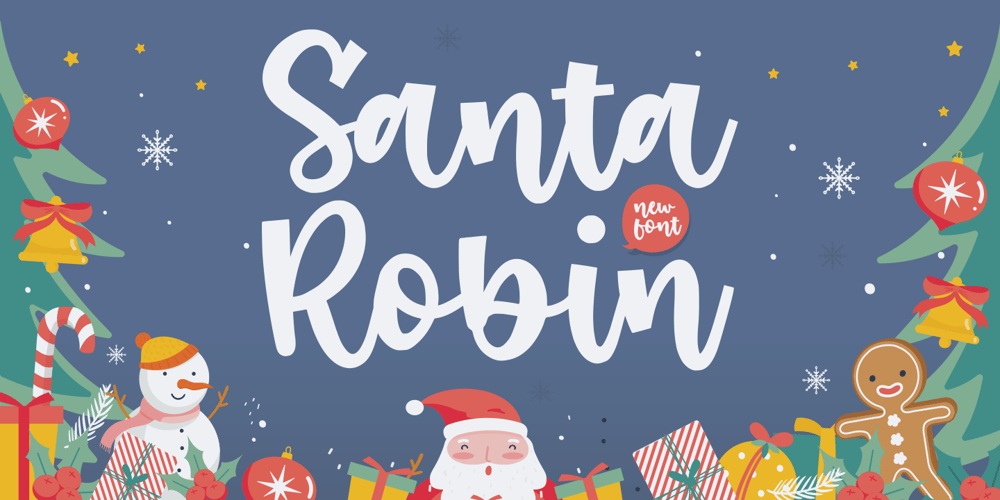
Santa Robin Font Family was designed by Restu Angga and published by Balpirick. Santa Robin contains 1 styles and family package options. Santa Robin is a Modern Handbrushed Font.Santa Robin is a sweet and friendly handwritten font. This playful font will look gorgeous on a variety of design ideas. It will add a joyful and romantic touch to each of your projects!Santa Robin also multilingual support.Enjoy the font, feel free to comment or feedback, send me PM or email.Thank you!